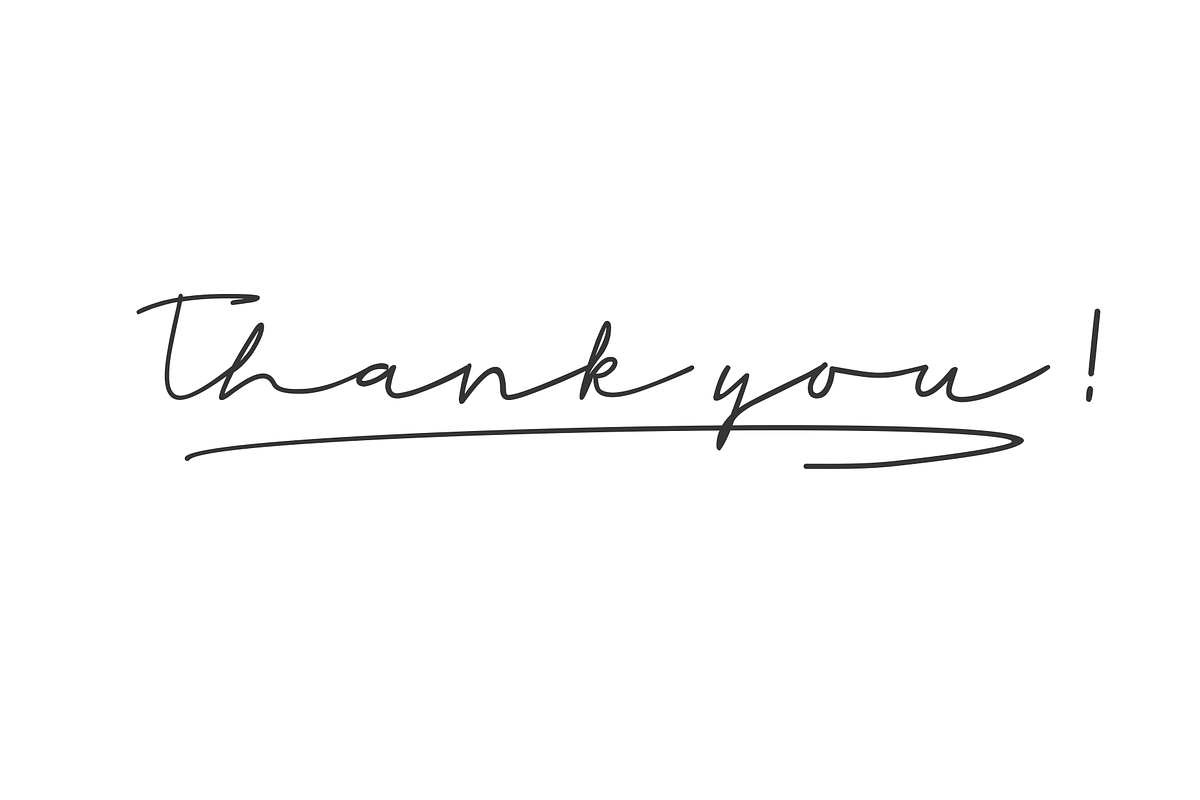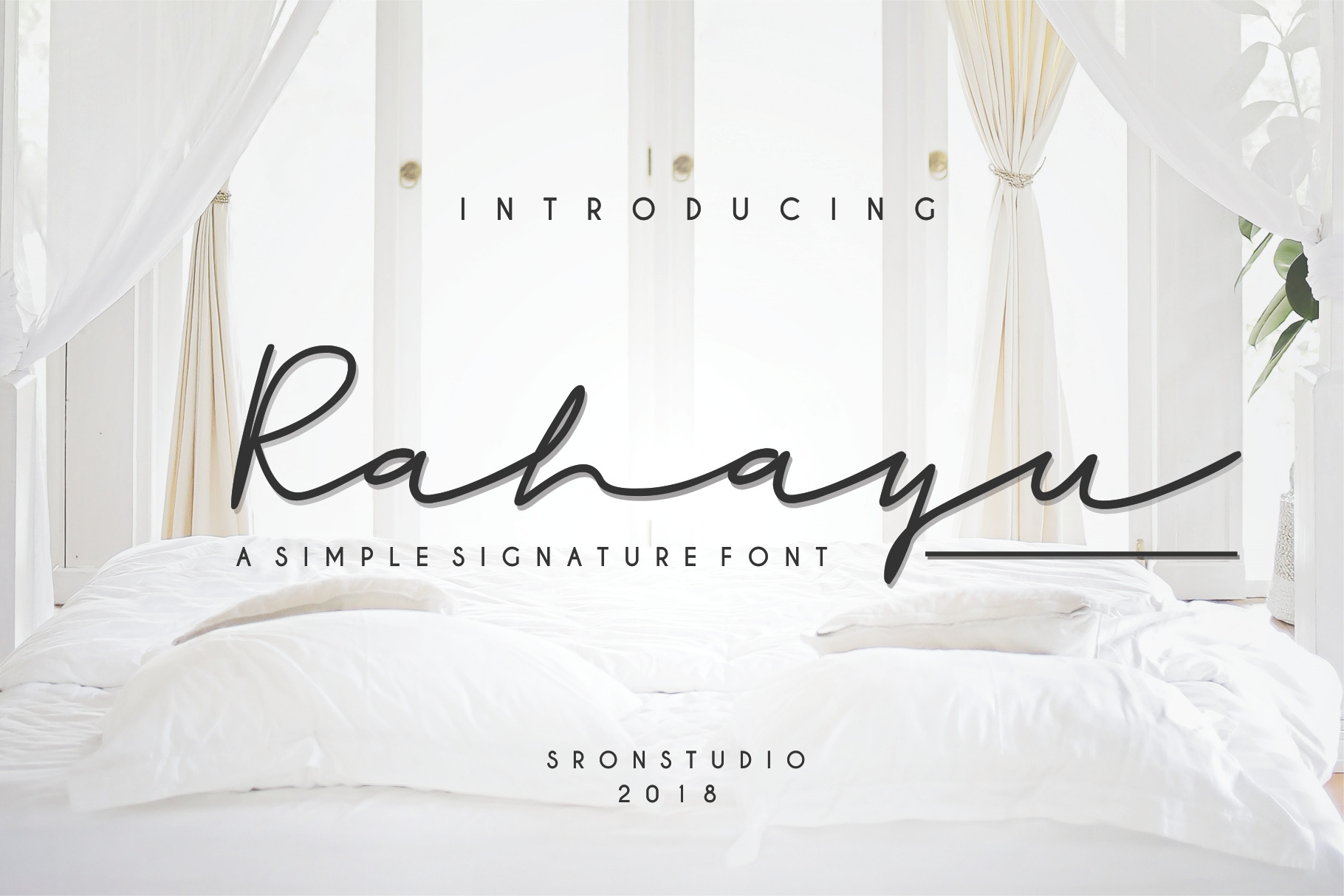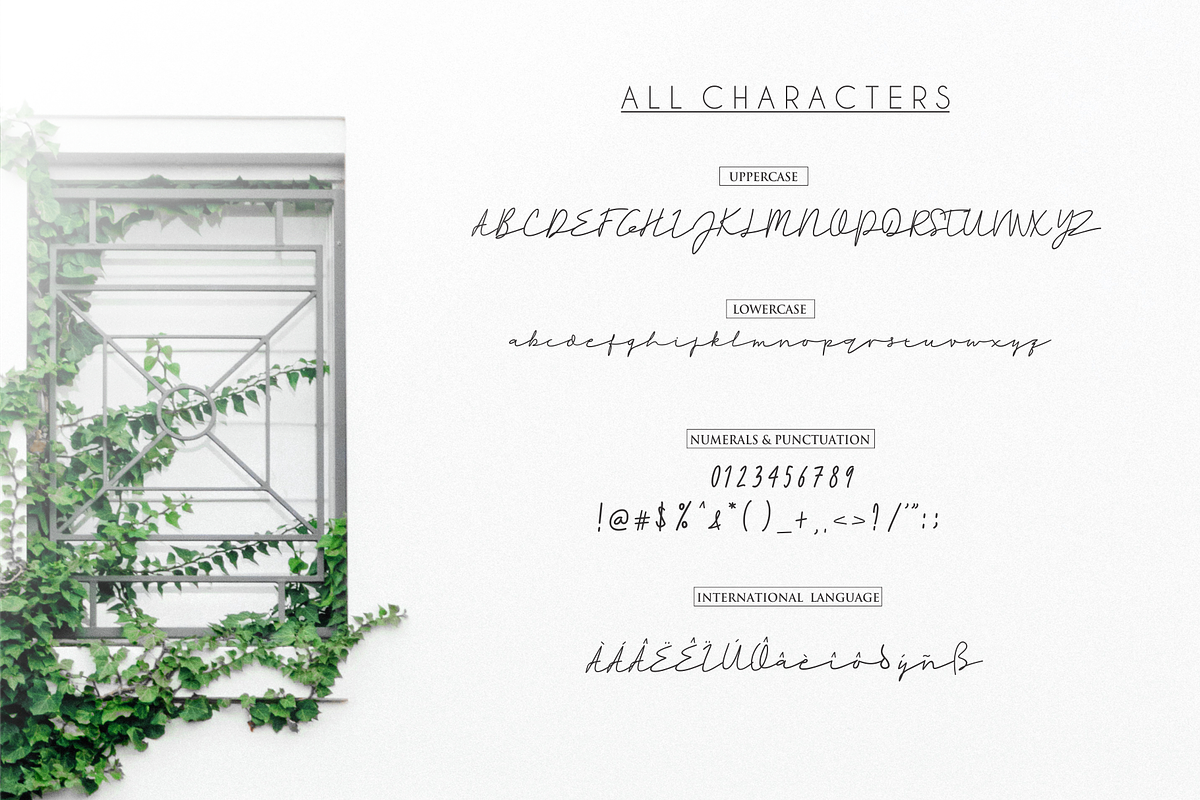
Rahayu Signature Font
Rahayu is a signature Font with a handwritten and script style make this font looks elegant, natural, stylish and perfect for any awesome projects that need signature taste. Rahayu would perfect for photography, watermark, social media posts, advertisements, logos & branding, invitation, product designs, label, stationery, wedding designs, product packaging, special events or anything that need signature taste.